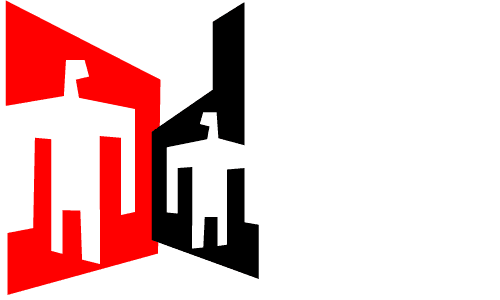
FRISCO_REMIX: D/d
Michael
Bartalos
San Francisco, California
I enjoy exploring the area
of overlap between design and illustration, most often by playing
positive and negative space off each other. My d and D
appear as night-scene vignettes on their own, but betray their letter
forms in the context of the font. |